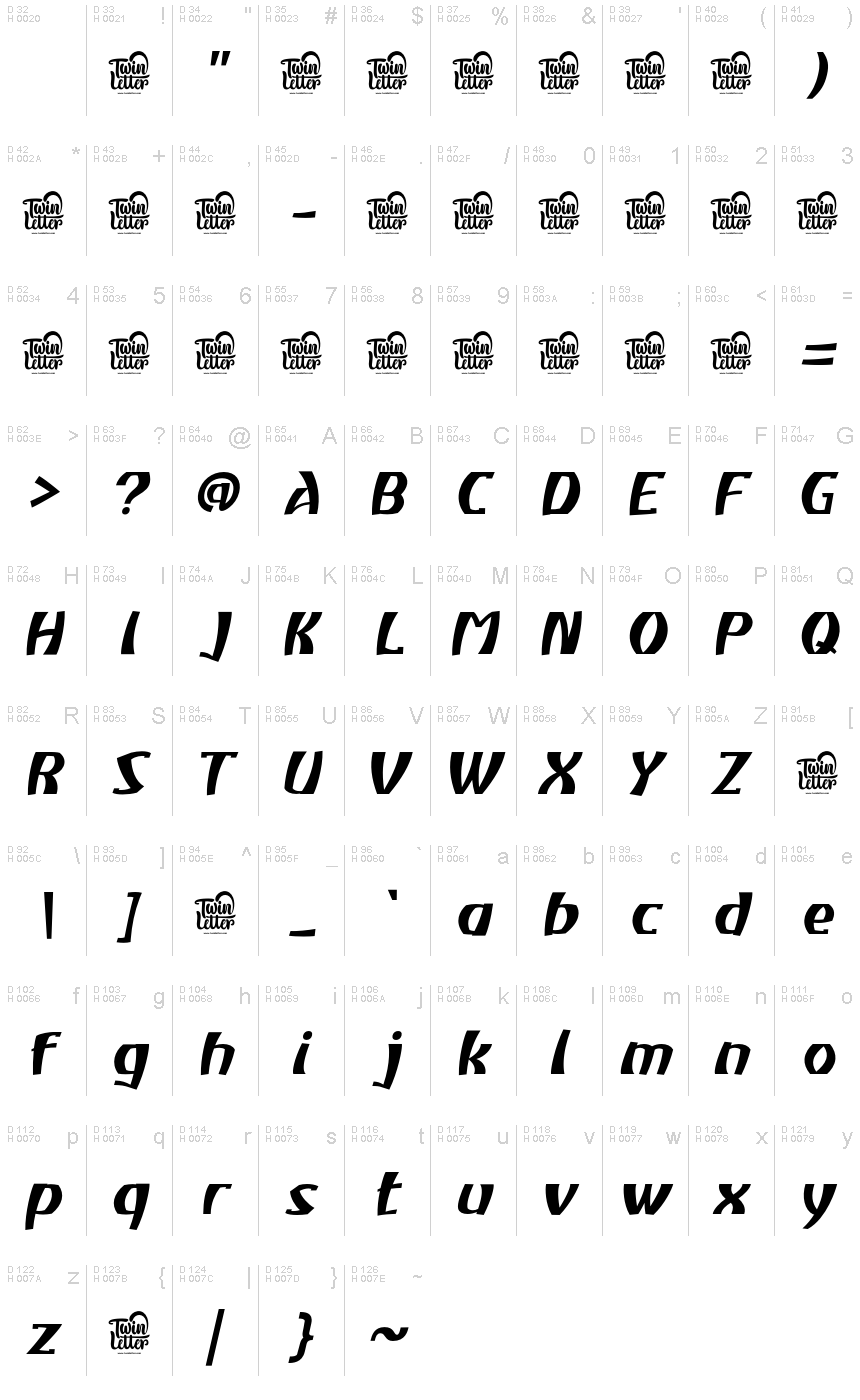
Atiku Med Slant font from the esteemed Atiku family by Twinletter exudes an exotic Japanese flair with bold strokes and slanted precision. It’s designed to captivate, adding a touch of luxury and sophistication that instantly elevates your brand's image.
Perfect for modern advertising, social media posts, and creative projects, this free font adapitates seamlessly to any design need. With 18 versatile styles and comprehensive OpenType features, Atiku ensures your creations are both stunningly unique and effortlessly executed.